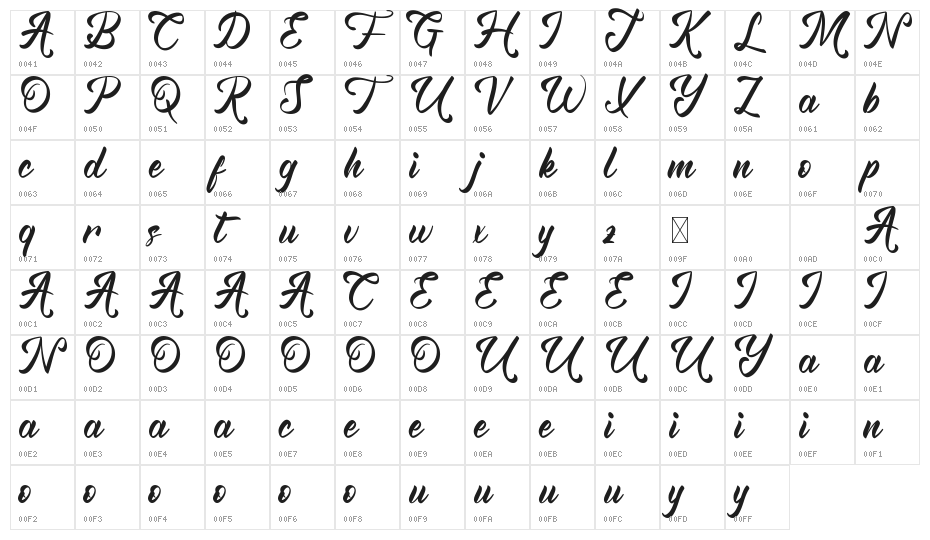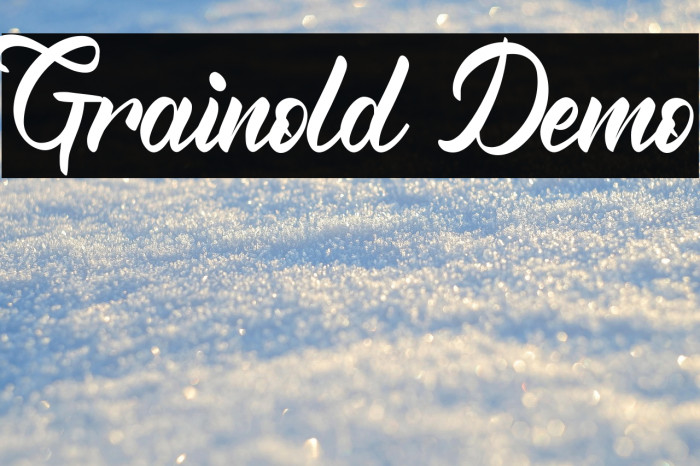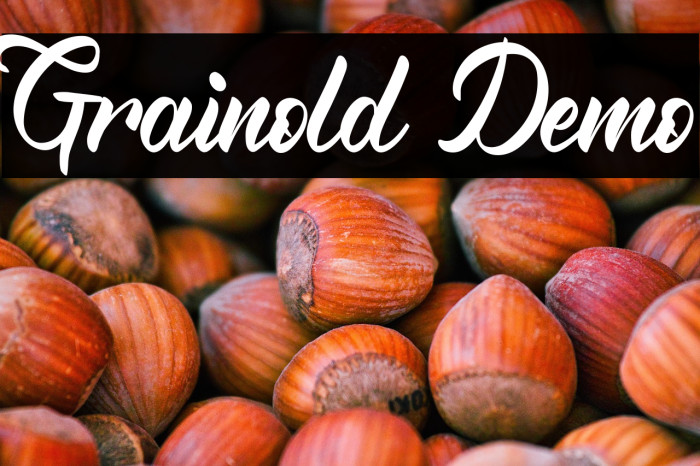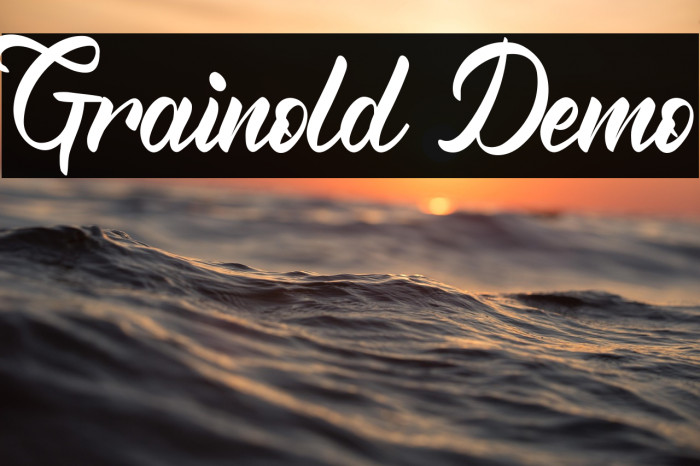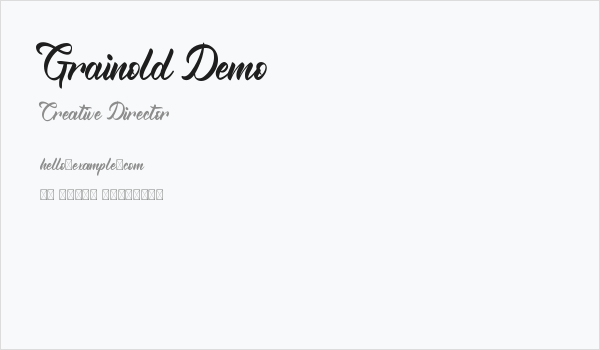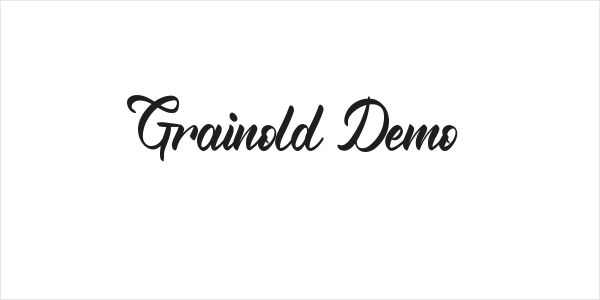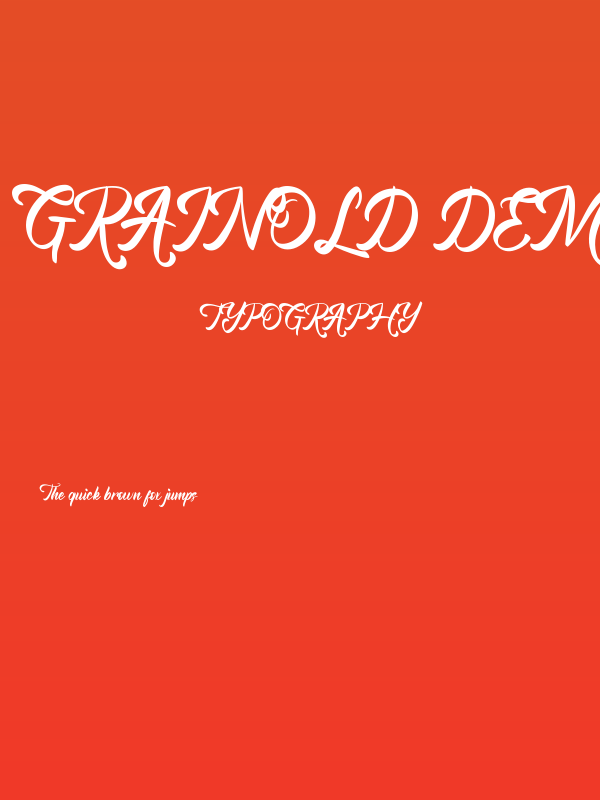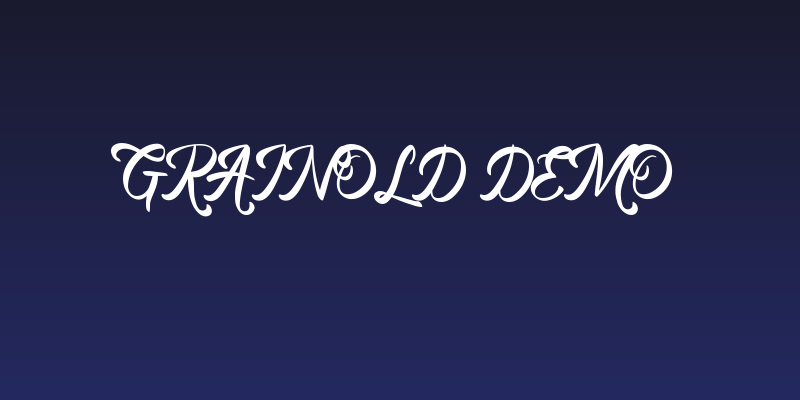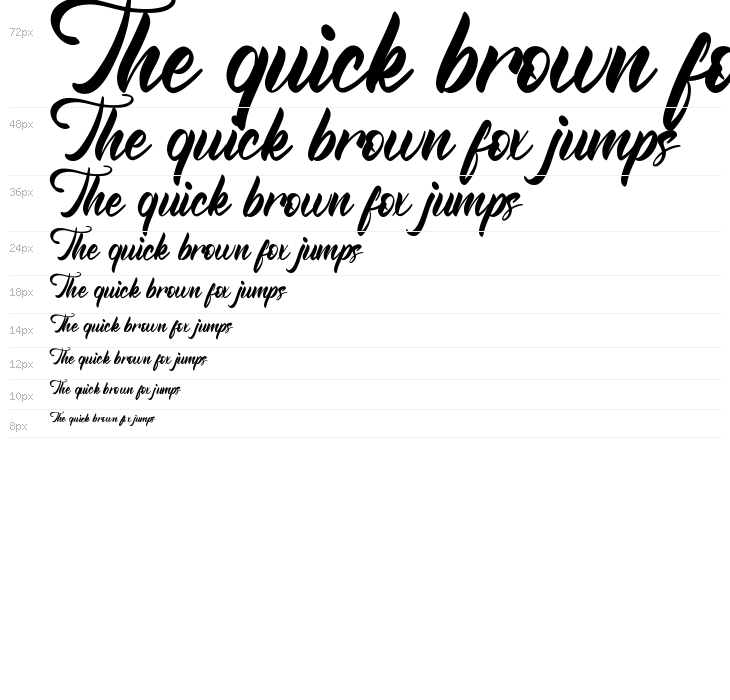
Grainold Demo Font
Grainold Demo Description
This font features a bold and expressive script style, characterized by its flowing, cursive letters that convey a sense of elegance and dynamism. The uppercase letters are ornate, with sweeping curves and flourishes that add a decorative touch. The lowercase letters maintain a consistent flow, enhancing readability while retaining a stylish appearance. The numerals and special characters are designed to complement the overall aesthetic, ensuring versatility across various applications. The font's bold weight and high contrast between thick and thin strokes make it stand out, ideal for creating impactful designs.
| Proposed Projects | Ideal for wedding invitations, branding, logo design, and elegant packaging. |